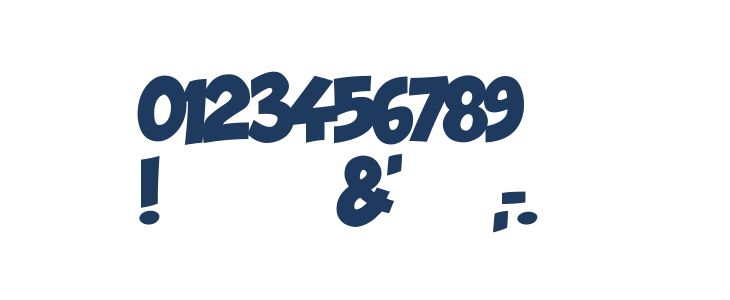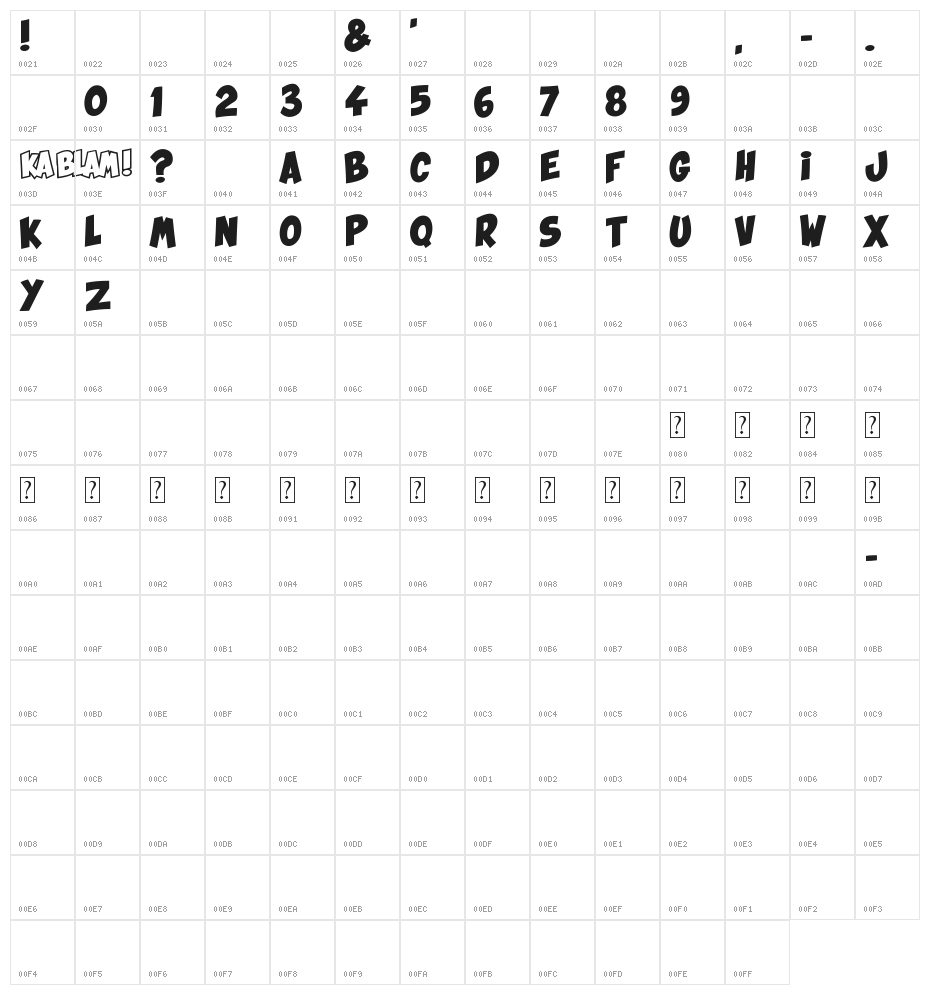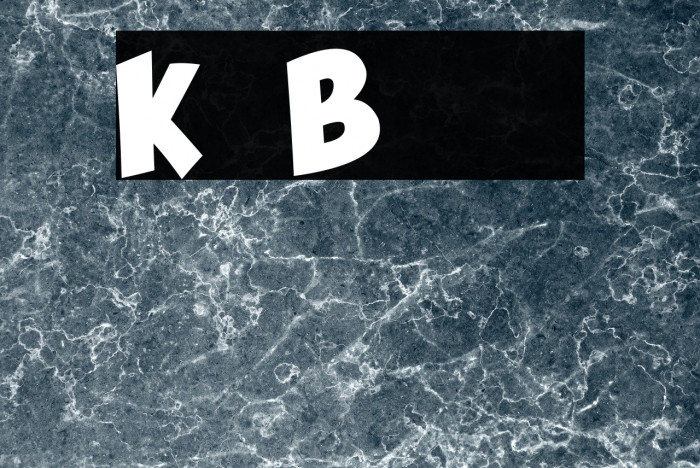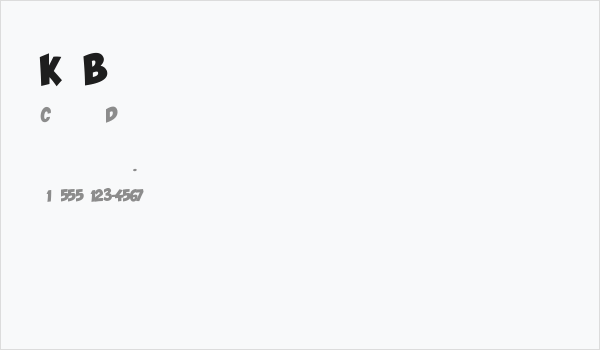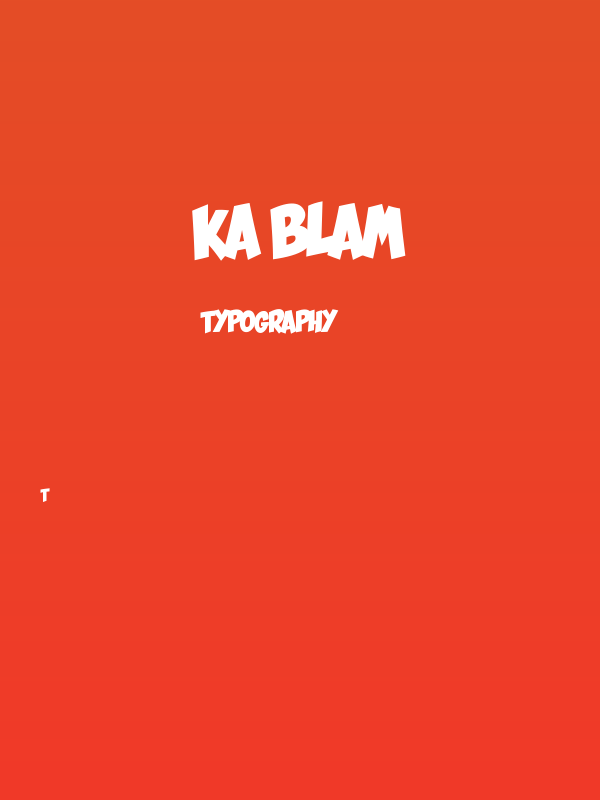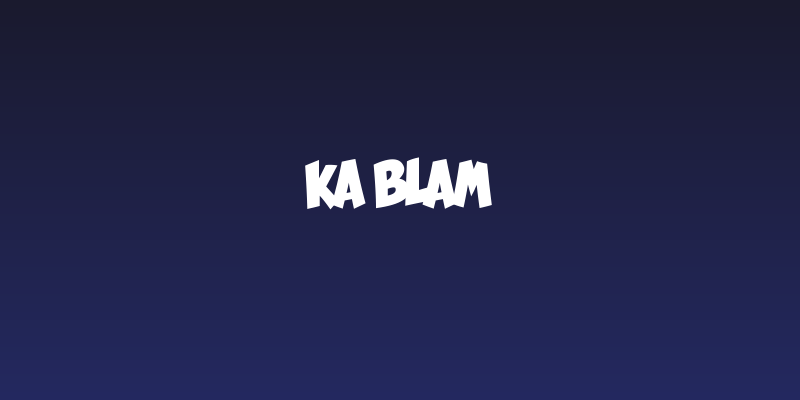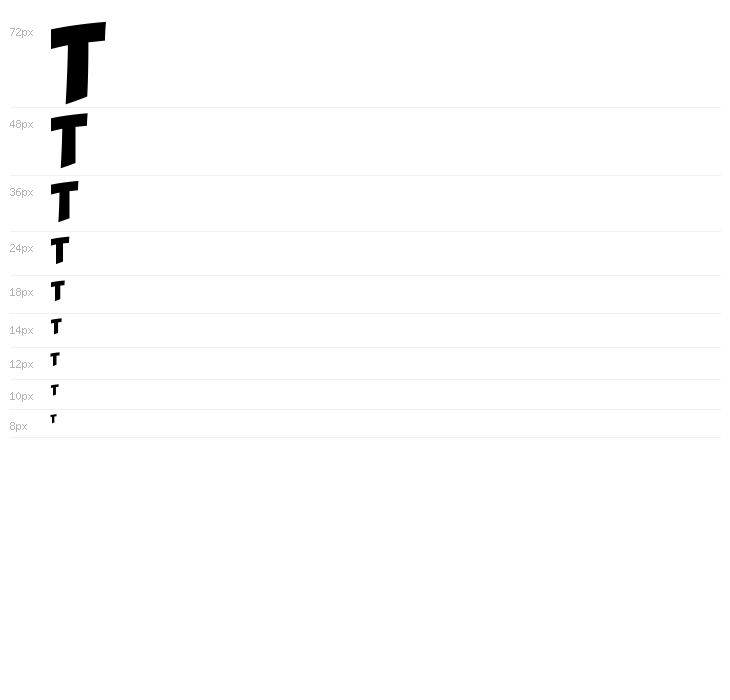
Ka Blam Font
✎ Comic
| Kategorien | Comic |
| Gesamtstil | Playful, Energetic, Comic |
| Anwendungsfall | Headlines, Posters, Branding |
| Vorgeschlagene Projekte | Ideal for comic books, children's books, posters, and playful branding projects. |